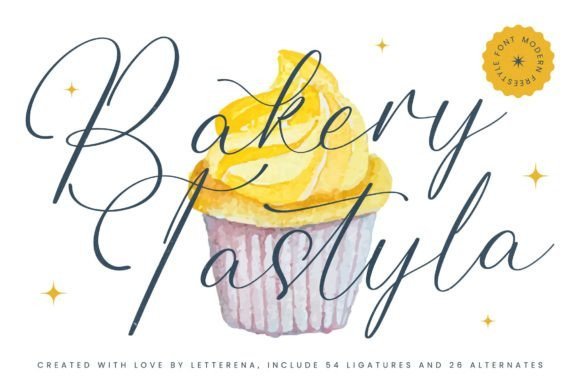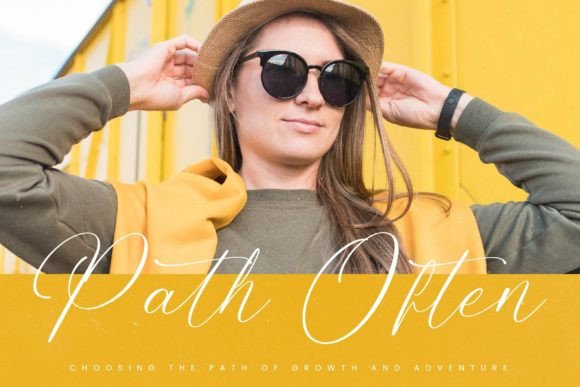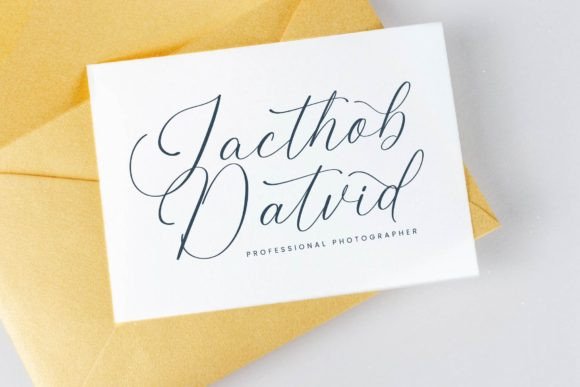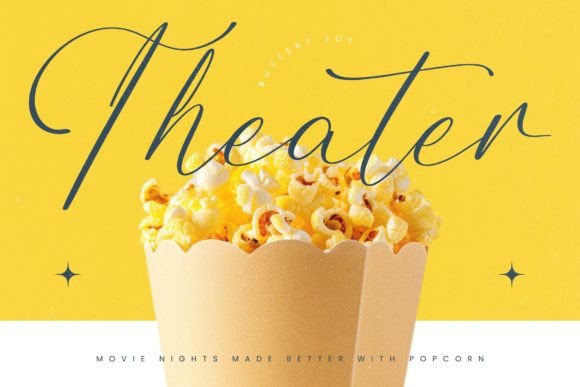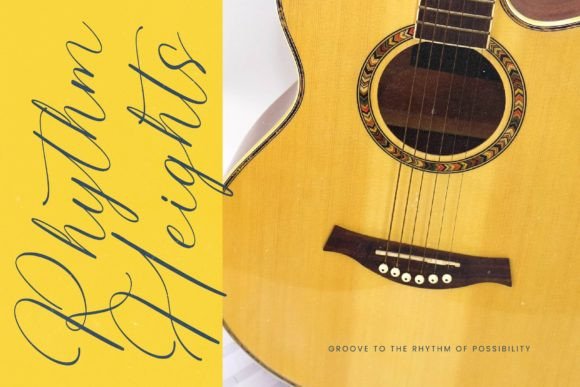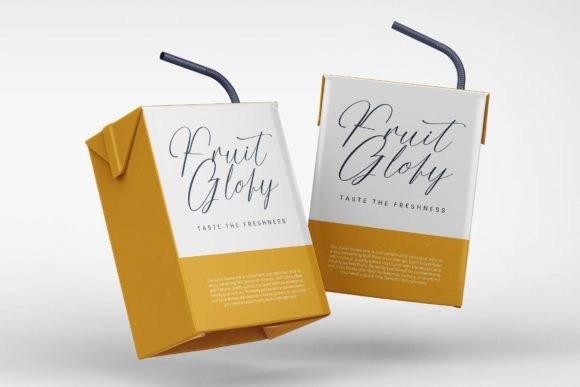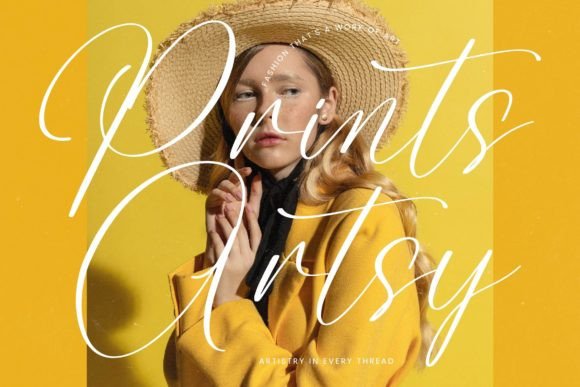
The Perfect Recipe for Luxury Branding: Introducing Bakery Tastyla Font
Have you ever stared at a blank canvas, struggling to find the perfect font to bring your design to life? The blank page can be intimidating, but the right font can be the missing ingredient that takes your project from bland to grand. For designers seeking that special something, we’re excited to introduce Bakery Tastyla Font, a Luxury Script font from Letterena that adds a touch of elegance to any project.
This versatile font is designed for those who want to make a statement with their branding, packaging, and marketing materials. With its modern freestyle design, Bakery Tastyla Font is perfect for creating logos, product packaging, and other visual elements that exude luxury and sophistication. For designers, it’s a valuable asset that can elevate their projects and help them stand out in a crowded market.
- Unique Characteristics: Bakery Tastyla Font boasts a unique, hand-drawn design with a touch of elegance and sophistication, perfect for creating a warm and inviting atmosphere in bakery, cafe, and restaurant branding.
- Character Set: The font includes a comprehensive set of characters, including uppercase and lowercase letters, numbers, punctuation marks, and special characters, ensuring that you have everything you need to create professional-looking text.
- Language Support: Bakery Tastyla Font supports multiple languages, including English, Spanish, French, German, Italian, Portuguese, and many more, making it an ideal choice for businesses that cater to diverse customer bases.
Bakery Tastyla Font Review
I was excited to dive into the Bakery Tastyla Font, with its promise of capturing the warmth and charm of a bakery. Here’s my honest take on this font.
- Its unique, handwritten feel is perfect for creating a cozy and inviting atmosphere.
- The Bakery Tastyla Font is highly versatile and suitable for various applications, from bakery menus to packaging and advertising.
- The font’s characters are well-formed and easy to read, making it an excellent choice for body text and headings.
- The font’s size may become too ornate when scaled up, losing its charm and becoming difficult to read.
- While it’s perfect for informal settings, Bakery Tastyla Font may not be suitable for formal or corporate contexts where a more traditional font is preferred.
Overall, I think the Bakery Tastyla Font is a great choice for anyone looking to add a touch of warmth and personality to their designs. It’s a versatile and well-designed font that can help create a welcoming atmosphere. However, it’s essential to be mindful of its limitations and use it in the right context.
Use Bakery Tastyla Font for:
– Bakery or food-related branding.
– Packaging design.
– Menu boards.
– Social media graphics.
Combine Bakery Tastyla Font with other design elements, such as images or icons, to create a unique and eye-catching design.
Alternatives to Bakery Tastyla Font
Carolyna Pro is a modern script font designed for creative and elegant purposes. It’s perfect for branding, packaging, and advertising materials where a touch of sophistication is needed. Compared to Bakery Tastyla Font, Carolyna Pro has a more refined and delicate feel, making it ideal for high-end projects.
Great Vibes is a beautiful, hand-drawn script font ideal for creating a friendly and approachable atmosphere. It’s great for social media graphics, flyers, and posters where a casual and relaxed vibe is desired. Unlike Bakery Tastyla Font, Great Vibes has a more playful and carefree feel, making it perfect for youth-oriented projects.